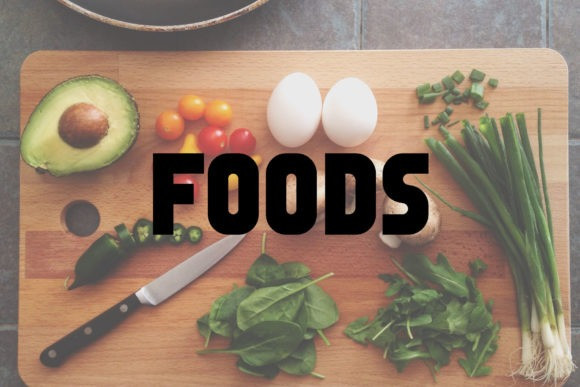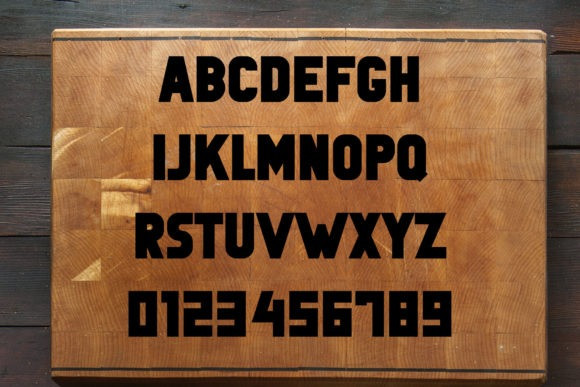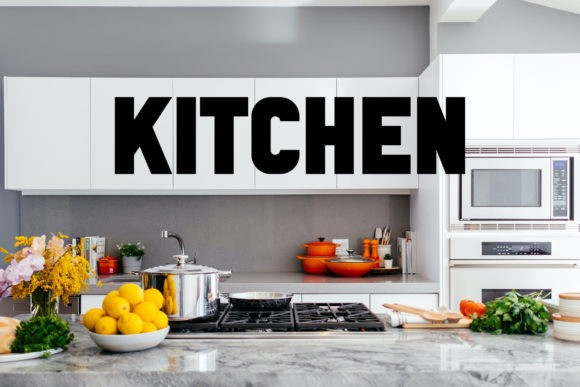
Kitchen Font
Kitchen Font is a simple and chunky lettered display font. No matter the topic, this font will be an incredible asset to your fonts’ library, as it has the potential to elevate any creation.